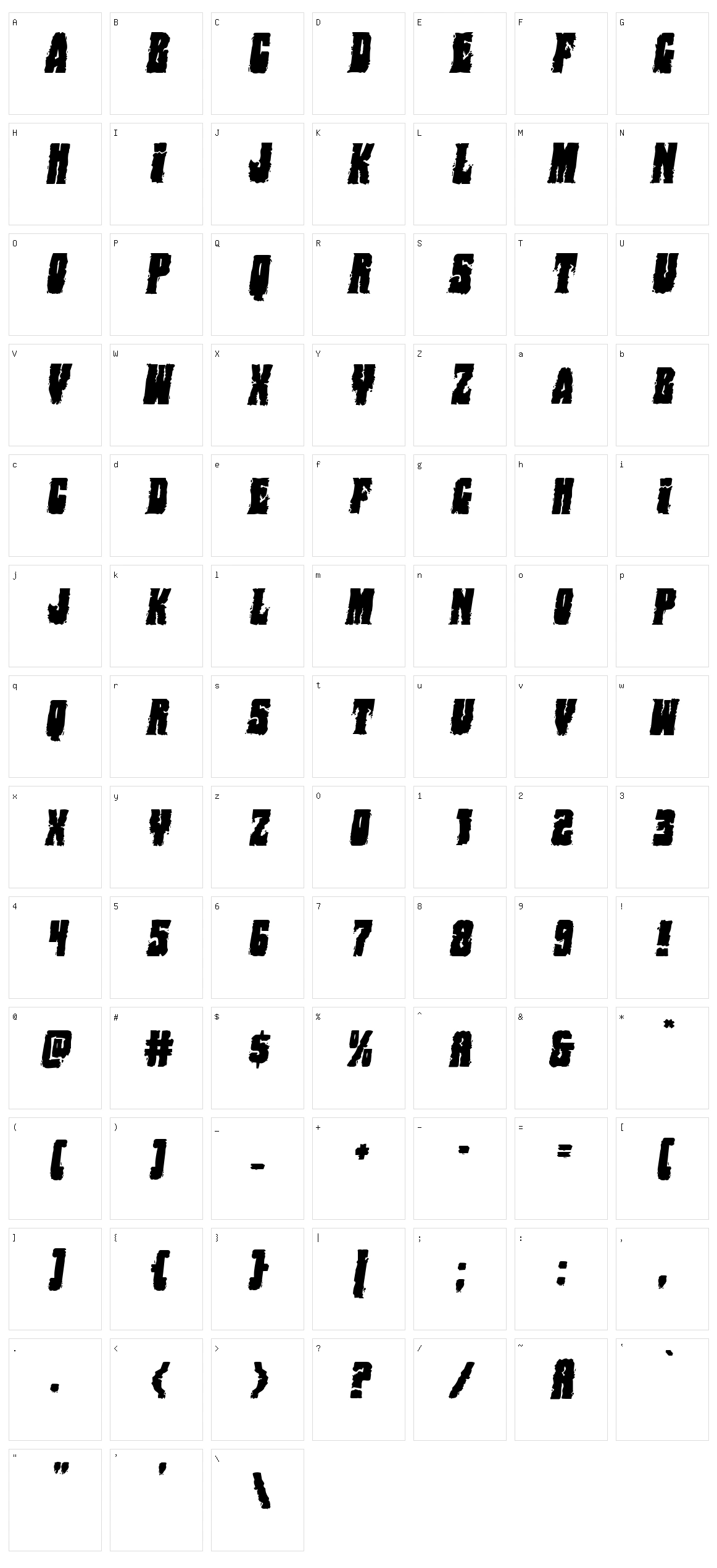
This font comes with the following 15 versions: Regular, Italic, Condensed, Condensed Italic, Expanded, Expanded Italic, Outline, Outline Italic, 3D, 3D Italic, College, College Italic, Rotated, Rotalic and Leftalic.